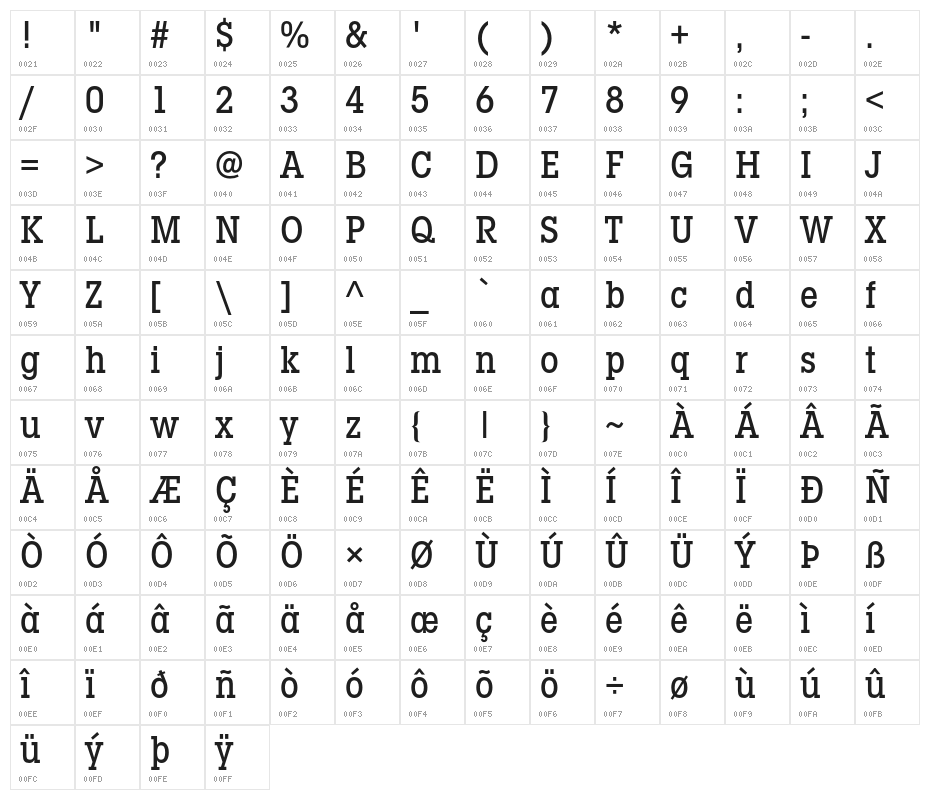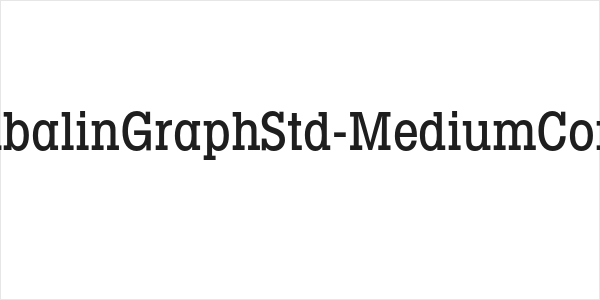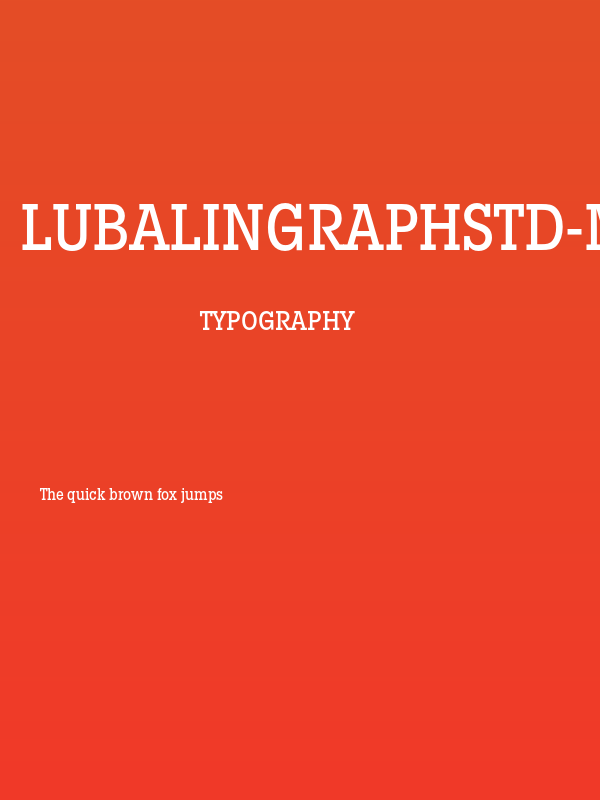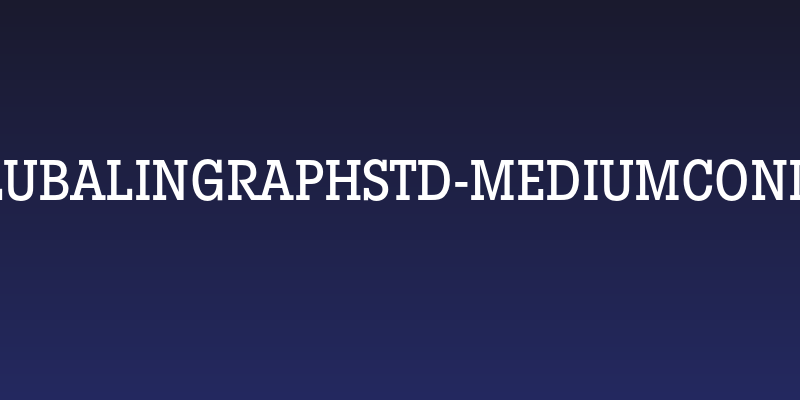
LubalinGraphStd-MediumCond Font
LubalinGraphStd-MediumCond Description
This font features a bold and structured appearance with slab serif characteristics. The letters are well-defined with thick, consistent strokes, providing a strong and authoritative look. The uppercase letters are prominent and commanding, while the lowercase letters maintain a balanced and readable form. The numerals are clear and distinct, making them easily legible. Special characters are designed to complement the overall style, maintaining the same boldness and clarity. The font's condensed width allows for efficient use of space, making it suitable for various design applications.
| Proposed Projects | Ideal for headlines, posters, branding, and editorial design where a strong, impactful presence is required. |